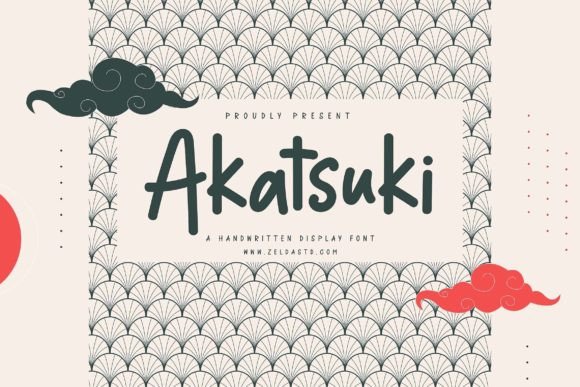
Unleash the allure of personal expression with Akatsuki Font, a script typeface that invites individuality and uniqueness into your designs. Inspired by the artistry of handwritten text, Akatsuki exudes an aura of authenticity and warmth, lending a human touch to your creative vision.
With its graceful curves and elegant lines, Akatsuki effortlessly adds a touch of sophistication and style to your designs. Whether you're creating logos, branding, invitations, posters, or any project that calls for a personal flair, Akatsuki delivers an exceptional experience.
Embrace the beauty of imperfection and let your designs dance with personality. Akatsuki's organic and flowing letterforms capture the essence of handwritten strokes, making it the perfect choice for adding a touch of charm and authenticity to your projects.